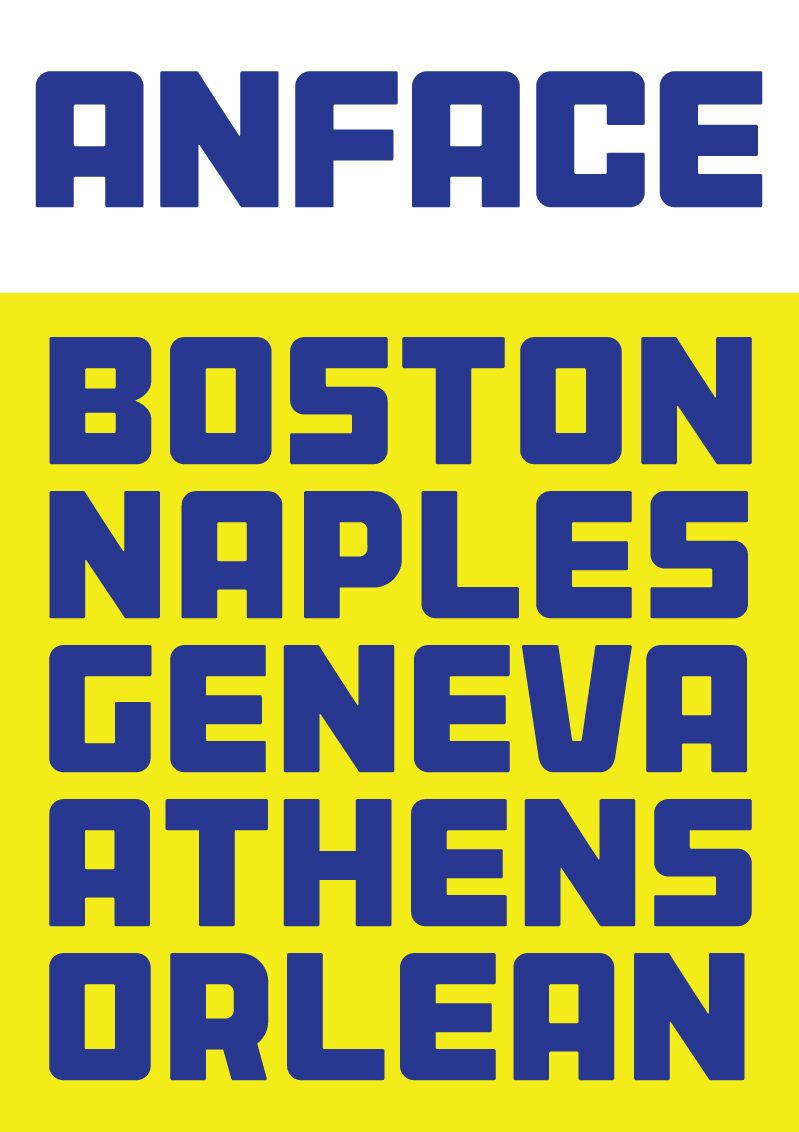
Anface, the modern sans serif font designed by andfonts, is the perfect choice for those looking to add a touch of boldness to their projects. With its semi-expanded width and clean lines, Anface is both legible and visually striking. Ideal for branding, advertising campaigns, or even editorial design, this typeface is versatile enough to suit any project that requires a contemporary feel. Whether you're designing a sleek website or creating eye-catching posters, Anface's bold weight will help make your message stand out. Give your next project an edge with Anface – the go-to font for modern design.